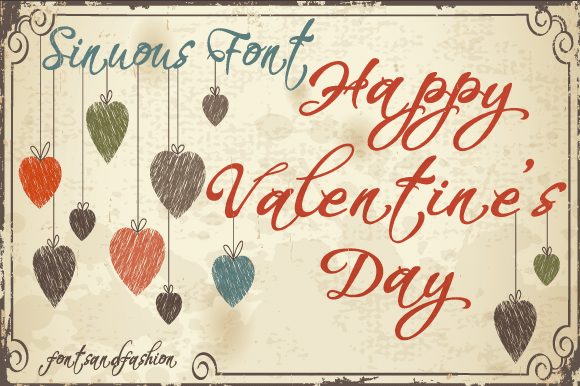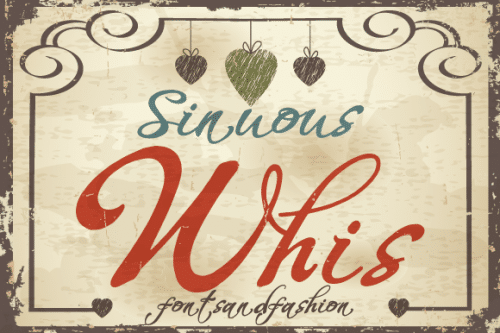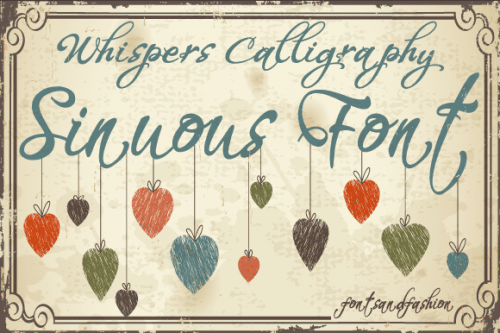
Happy Valentine’s Day is a stylish and delicate font. It has a clean, thin and smooth vibe and it will be a hit for any design that you want to add it to. It can be used for various purposes such as logos, wedding invitations, headings, t-shirts, letterhead, signage, labels, news, posters, badges and so much more.
- Designer: Fontsandfashion